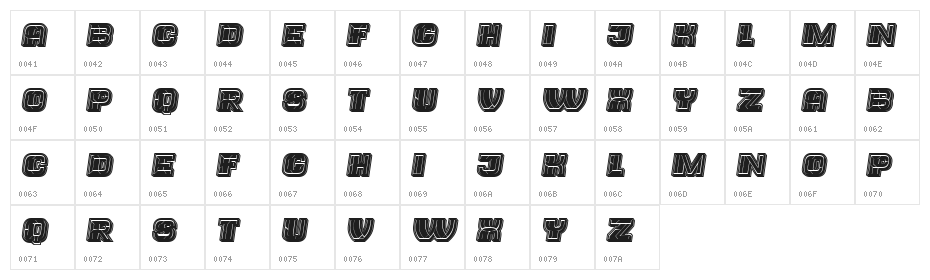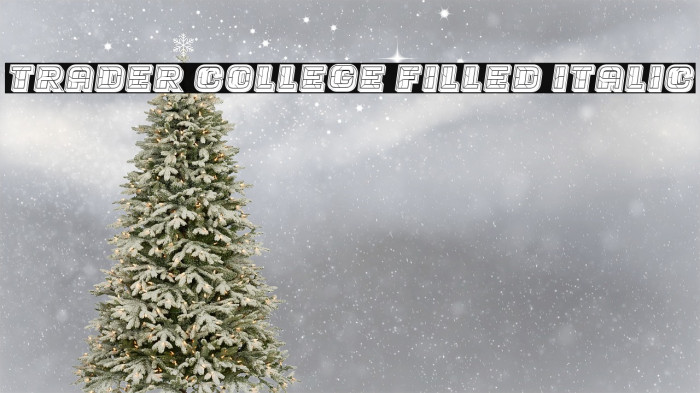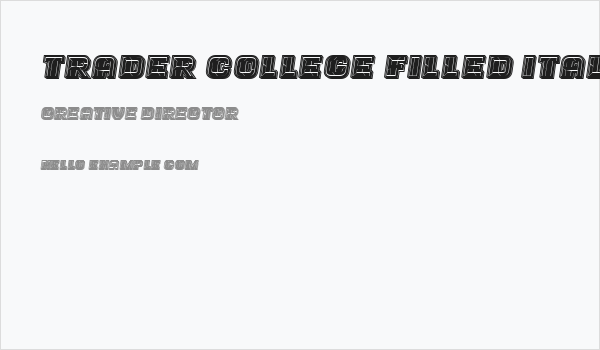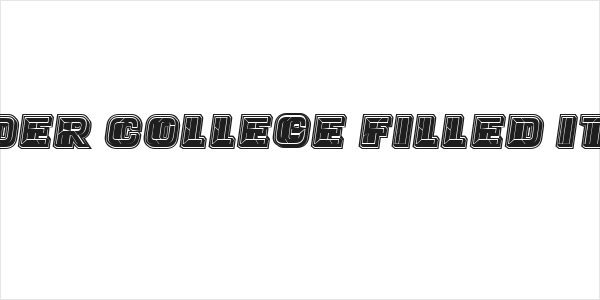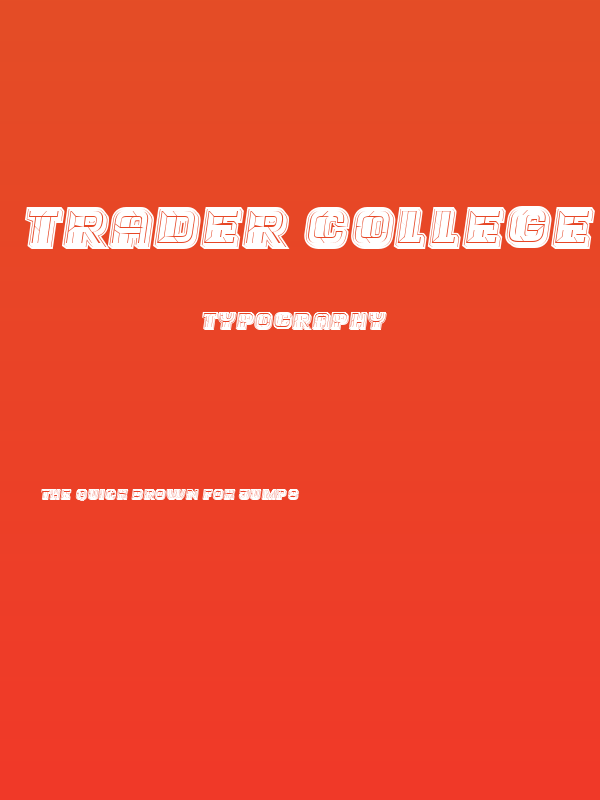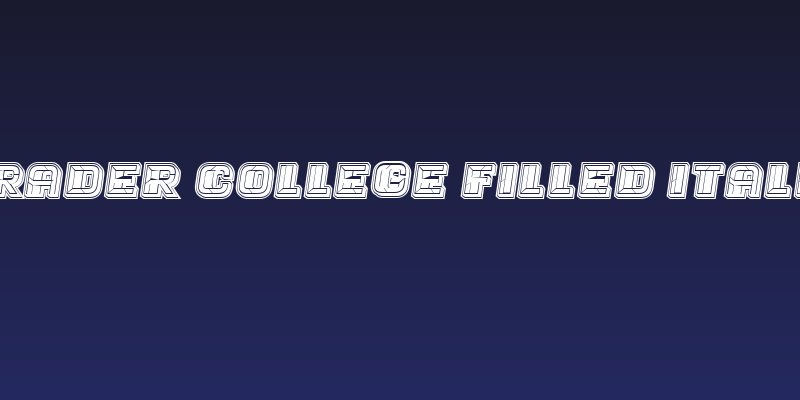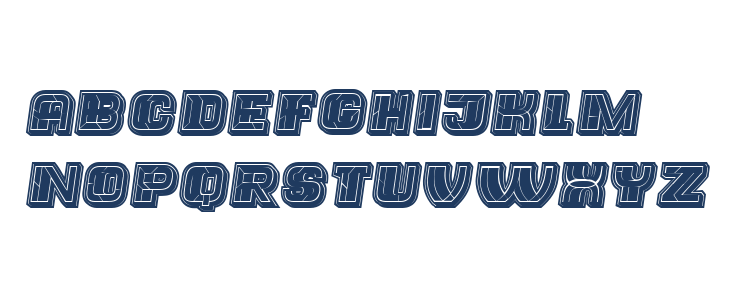
Trader College Filled Italic Font
Trader College Filled Italic Description
This font features a bold, collegiate style with a filled, italicized design. The characters are outlined with a thick, black border, giving them a strong and impactful appearance. The letters are uppercase, with a consistent width and height, creating a uniform look. The italic slant adds a dynamic and energetic feel, making it suitable for sports or academic-themed projects. The boldness of the font ensures high visibility and readability, even from a distance. The overall design is reminiscent of traditional varsity or college lettering, often seen on sports jerseys or university merchandise.
| Proposed Projects | Ideal for sports team branding, university merchandise, event posters, and any project requiring a bold, collegiate aesthetic. |